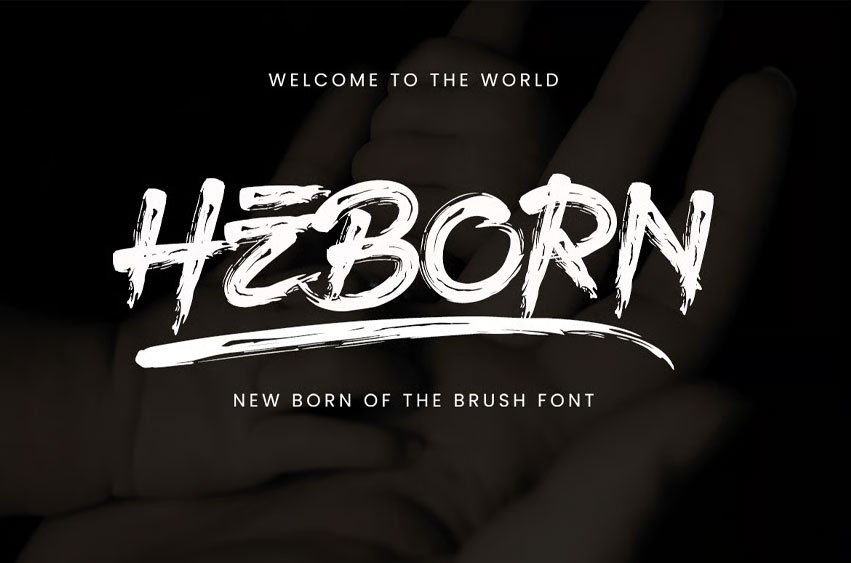
Heborn Font is a bold and expressive brush font that bursts with raw energy and handcrafted character. Inspired by street culture and artistic rebellion, HEBORN brings the dynamic texture of real brush strokes to your design work. Perfectly capturing the spirit of urban creativity, this font is designed for impact—whether you’re designing for branding, posters, album covers, or digital art.
HEBORN is not just a typeface, it’s a statement. The messy, organic brush strokes give it an authentic, energetic, and gritty personality, making every composition feel alive and powerful.
- Uppercase & Lowercase Characters – Hand-drawn with rough textures to maintain a natural brush feel.
- OpenType Features – Includes stylistic alternates and ligatures to create a custom and varied look.
- Special Ligatures – Includes creative stroke elements activated by symbols such as +++, —, or @@@.
- Multilingual Support – Covers multiple languages with extended characters.
- Punctuation & Symbols – Fully equipped for versatile design use.
- Authentic Handcrafted Style – Brings a natural, raw aesthetic to your designs, ideal for modern and urban themes.
- Highly Customizable – With alternates and ligatures, you can create unique word shapes every time.
- Eye-Catching – Its bold, edgy design is perfect for grabbing attention in headlines, packaging, and advertisements.
- Versatile Usage – Great for streetwear branding, skate culture, grunge posters, social media graphics, or any design needing a rebellious flair.
- Creative Bonus Elements – Decorative swashes and brush streaks enhance visual impact and composition variety.